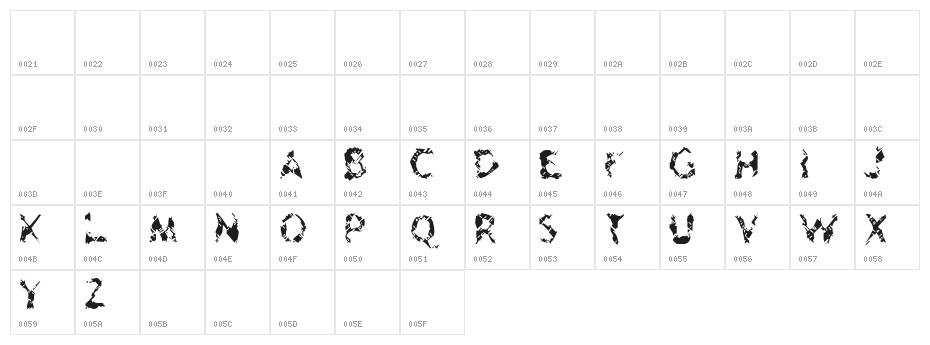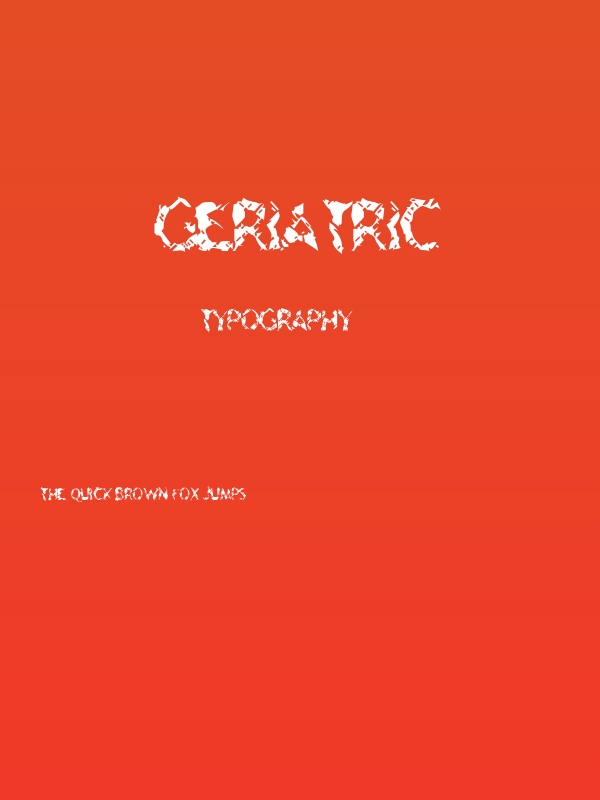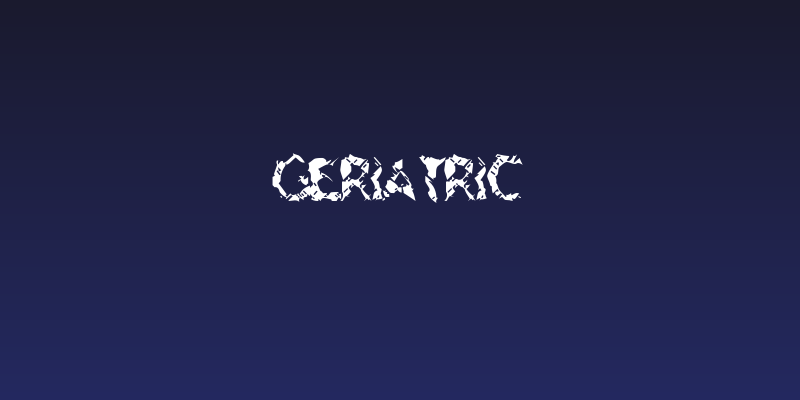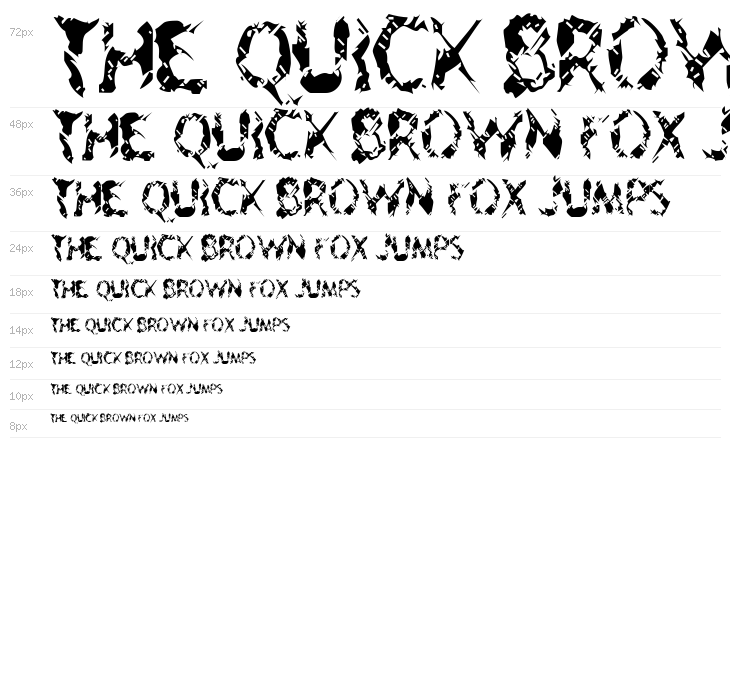
Geriatric Font
Geriatric Description
This font features a highly decorative and distressed style, with each character appearing as if it is composed of fragmented and jagged elements. The design gives an impression of chaos and ruggedness, making it stand out as a bold statement piece. The uppercase letters are particularly striking, with sharp angles and irregular shapes that create a sense of movement and energy. The font's unique appearance makes it suitable for projects that require a strong visual impact, such as posters, album covers, or themed event invitations. Its intricate design may not be suitable for body text but excels in capturing attention in headlines or logos.
| Proposed Projects | Posters, album covers, themed event invitations, headlines, logos. |